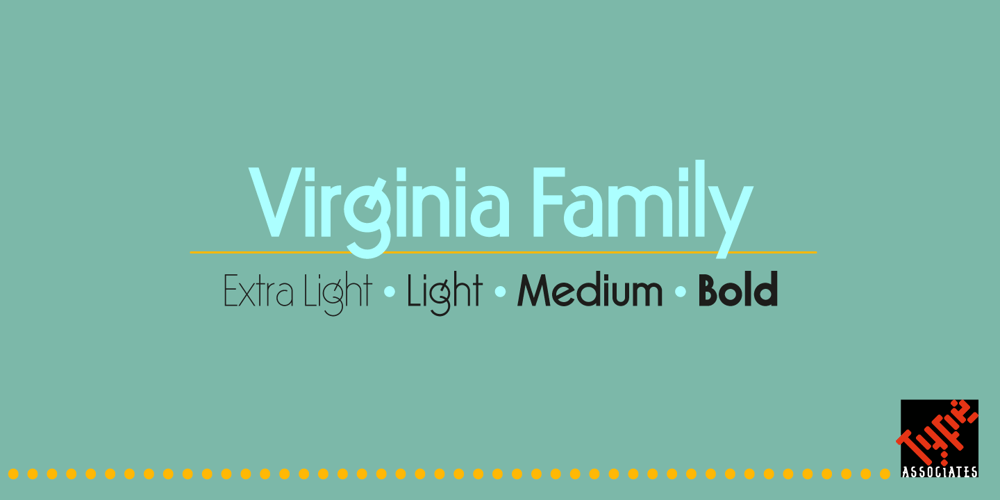
Virginia Font Family was designed by Russell Bean and published by Type Associates. Virginia contains 4 styles and family package options. Virginia has a proven track-record. Unashamedly geometric, starkly simple with a touch of art deco/bauhaus/rococo about her, she was the most popular headline face around, at least in my home town in the year of her release circa 1970. That was the year my five-weight design won the inaugural (and only) Lettergraphics International Alphabet design competition and shut out 5000 competitors. Alas, Lettergraphics ceased to trade from its LA studios after the mid-80s and Virginia’s two-inch film fonts were left to collect dust on the cutting room floor. Until my recent decision to revive her along with some subtle tweaking, a few additional glyphs and Opentype features, supported by an abundance of kern pairs making Virginia suitable for text or the largest display type.